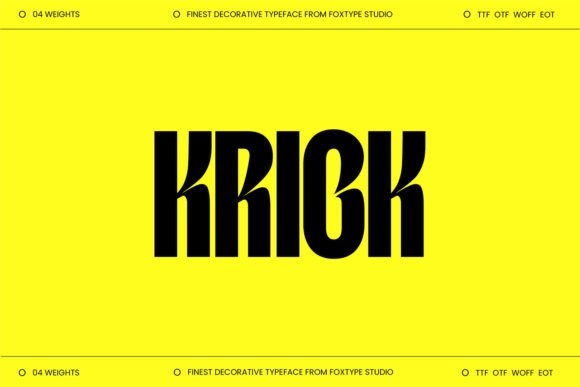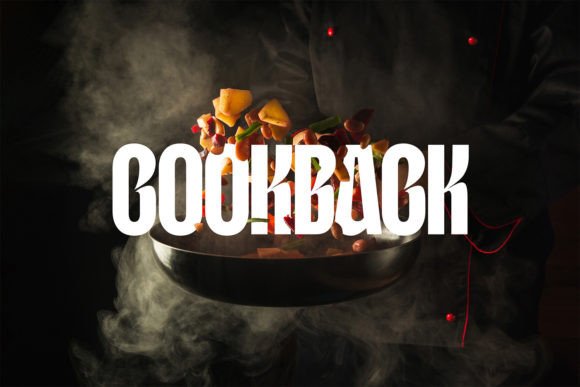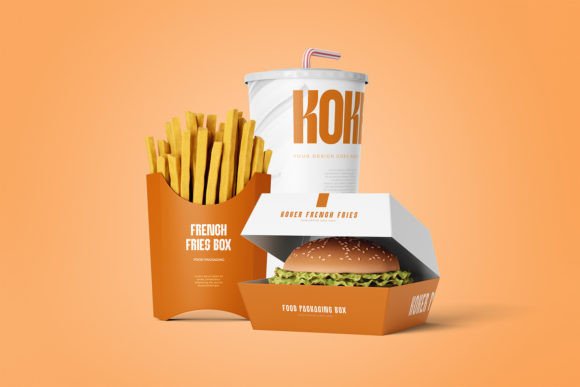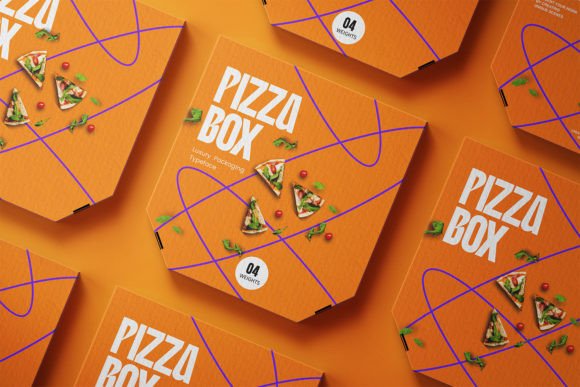
Krick Font: A Bold & Minimalist Display Font for Modern Branding
About the Krick Font
Unleash your creativity with Krick Font, a versatile font perfect for a wide range of applications. Krick is an attractive and modern display font that combines geometric and organic shapes with a touch of elegance. Its clean and minimalist design makes it perfect for branding, posters, and editorial layouts that require a sleek and contemporary look. Nova is sure to grab your audience’s attention with its simple yet bold style.
Krick excels in headlines, logos, and short, impactful text on posters or packaging. Its strong geometric elements make it highly legible at larger sizes, while the organic nuances prevent it from feeling overly cold or rigid. Avoid using Krick for body text or long paragraphs; its display-oriented design isn’t optimized for readability in smaller sizes.
The font’s personality is sophisticated yet approachable; it projects a modern and confident image. Brands seeking a clean, bold aesthetic—think high-end fashion, technology, or architectural firms—will find it particularly suitable.
Pairing Krick with a neutral sans-serif like Lato for body copy offers excellent contrast and readability. For a more playful feel, consider pairing it with a rounded sans-serif like Montserrat. A classic serif like Garamond would lend a touch of traditional elegance, balancing Krick’s modernity with timeless sophistication.